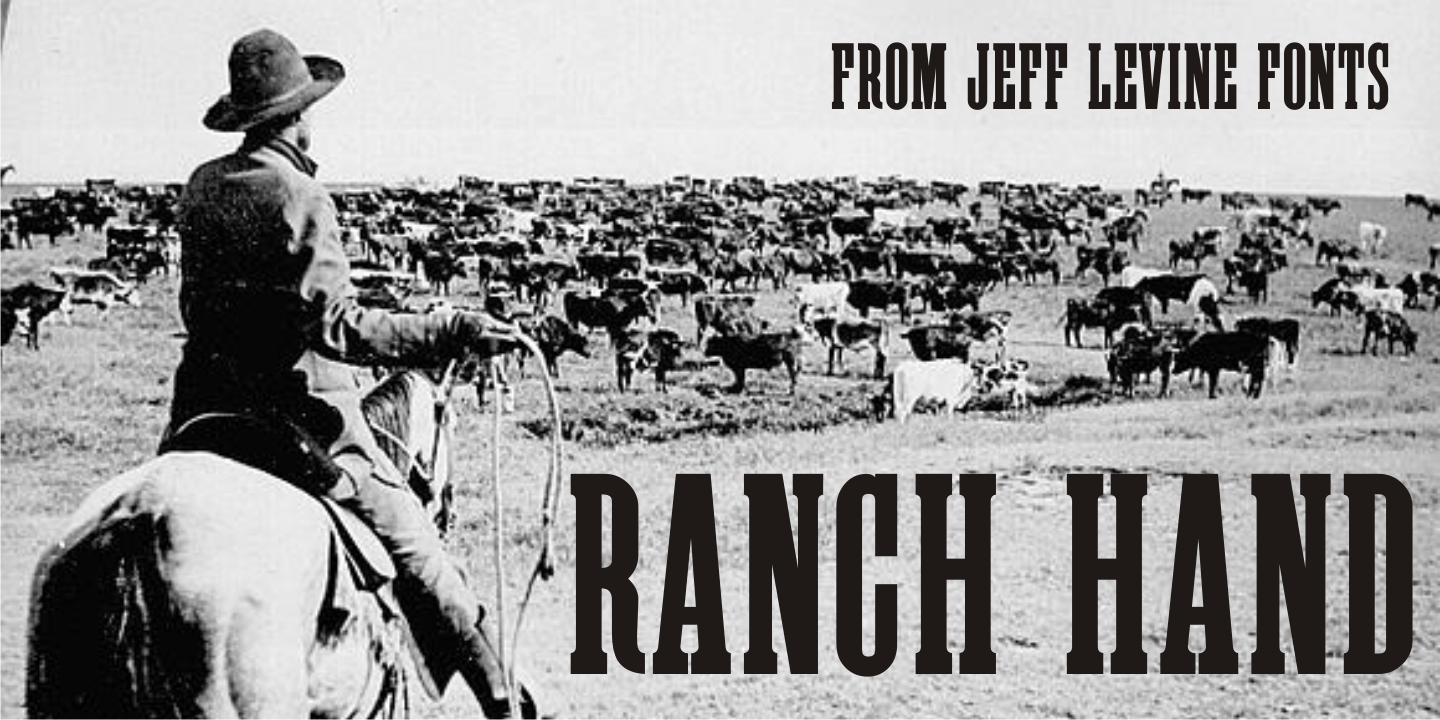
Ranch Hand
Ranch Hand JNL is a tall, condensed wood type with slab serifs. The font is somewhat bolder in weight than Nostrand JNL, but like its counterpart, fully captures the spirit and flavor of Nineteenth Century advertising, fliers and notices.